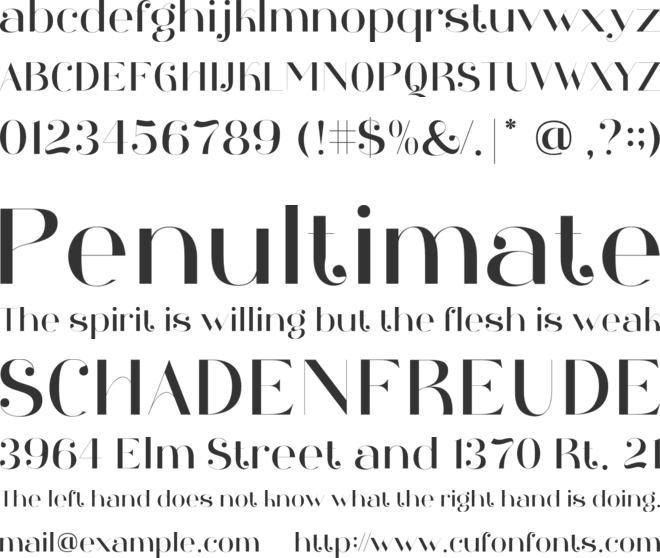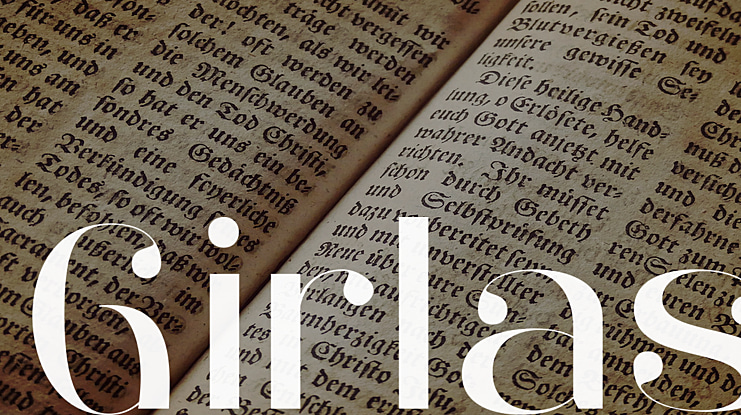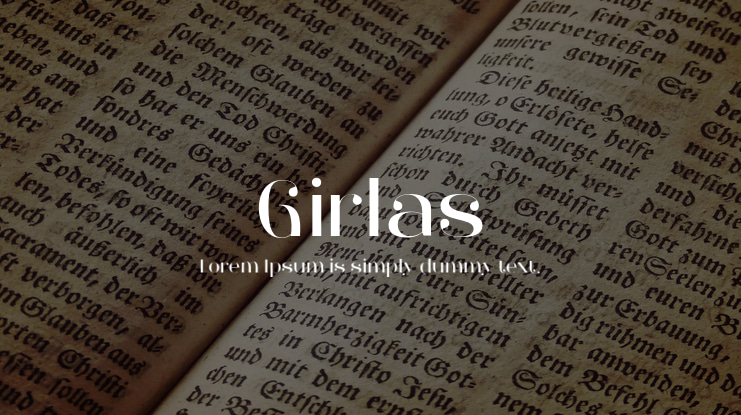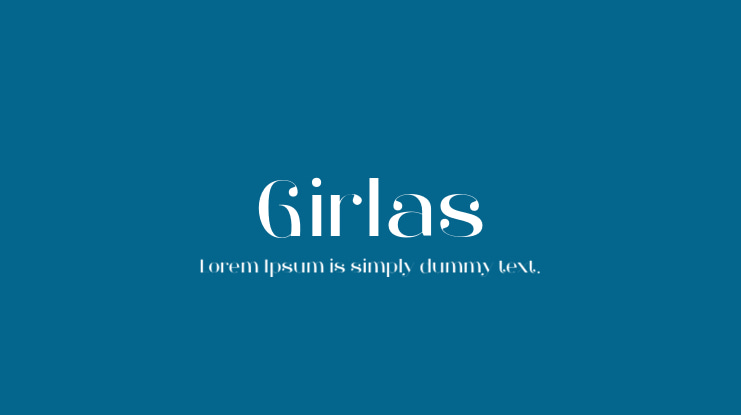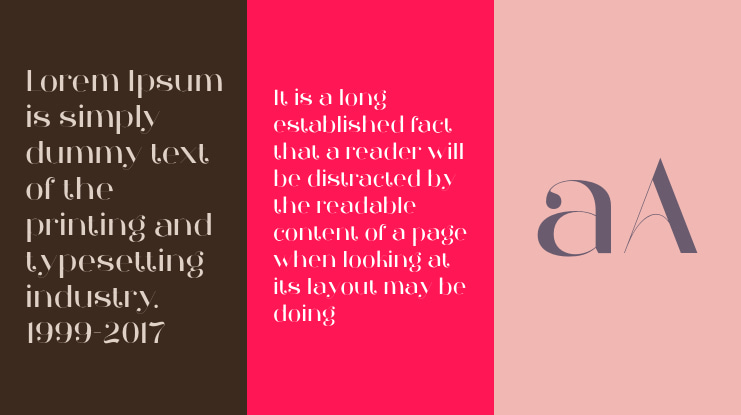
Girlas Font
Girlas elegant serif font is a beautiful high contrast font. Girlas work well for beauty product branding because girlas contain a variety of letters and ligatures that add a feminine feel to your designs.